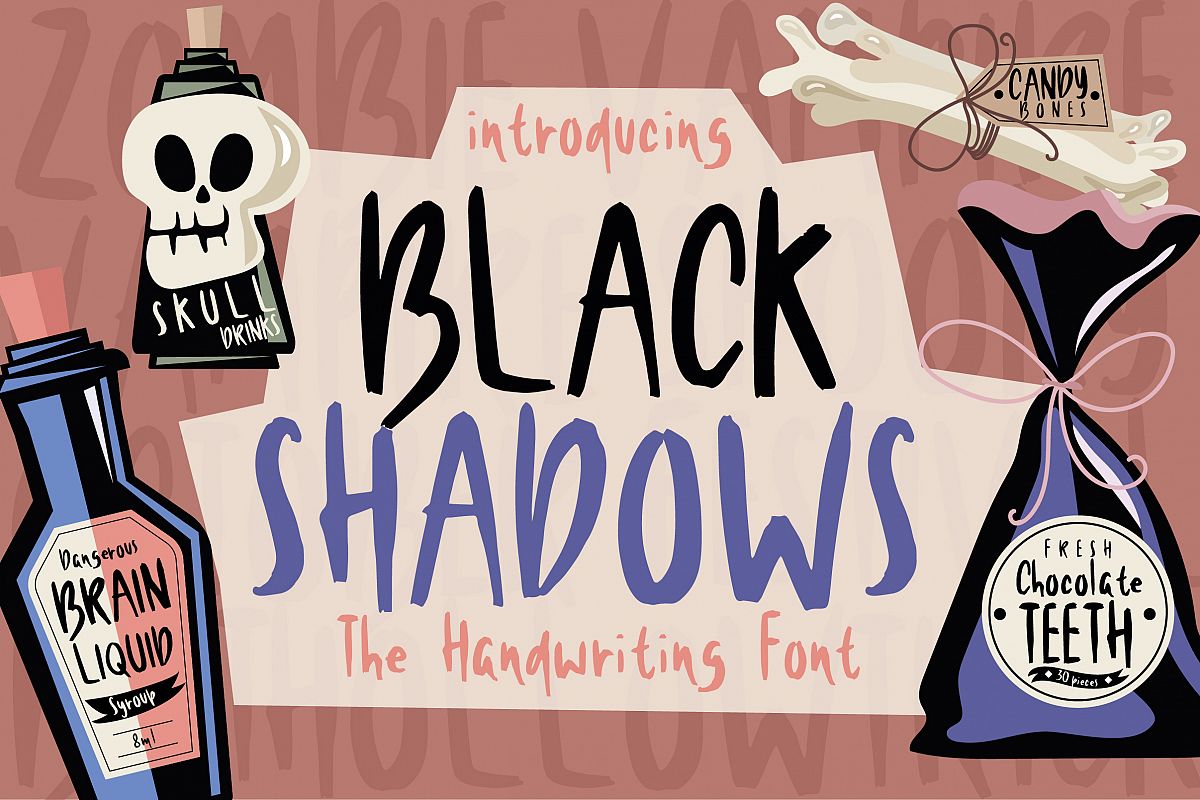
Black Shadows Font
This is Black Shadows a handwriting font suitable for horror/fun theme purpose, especially halloween! You will also get 22++ halloween illustration as bonus!